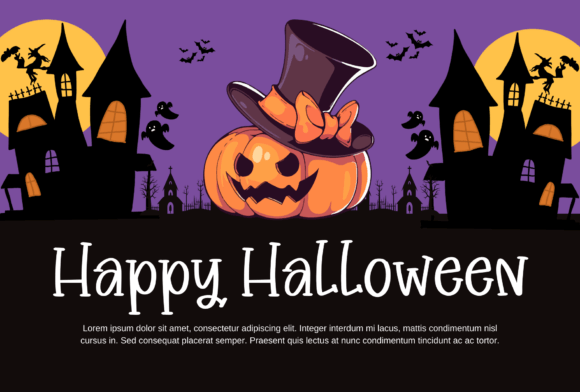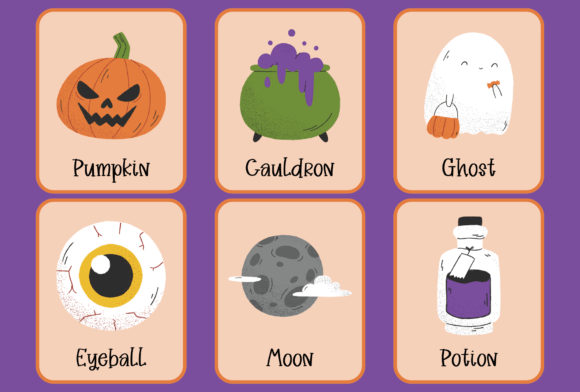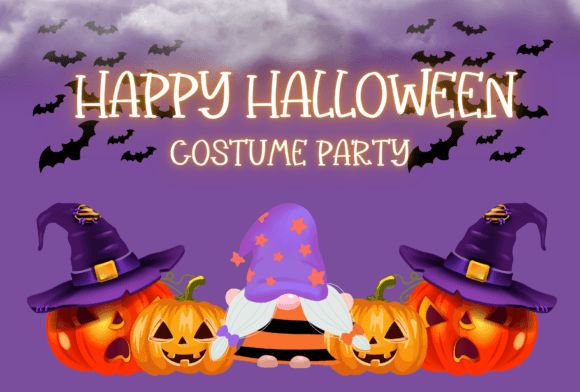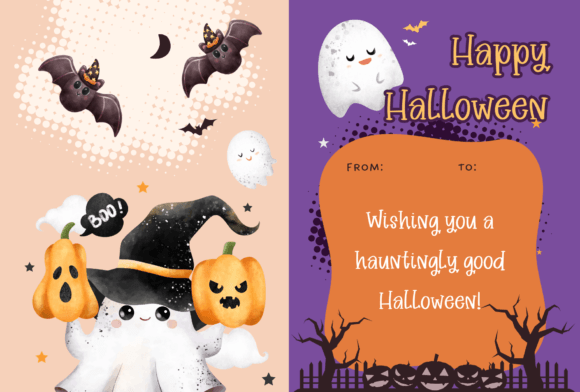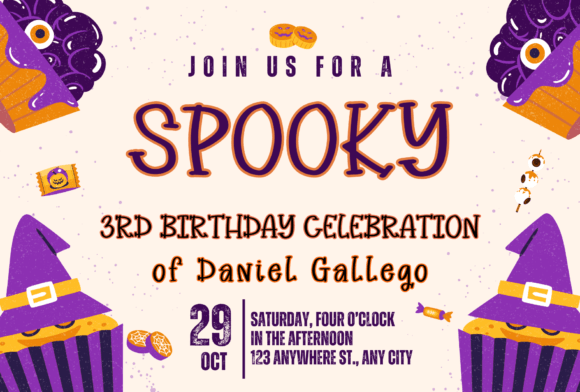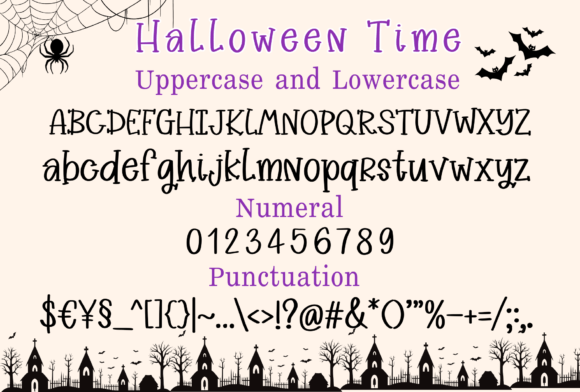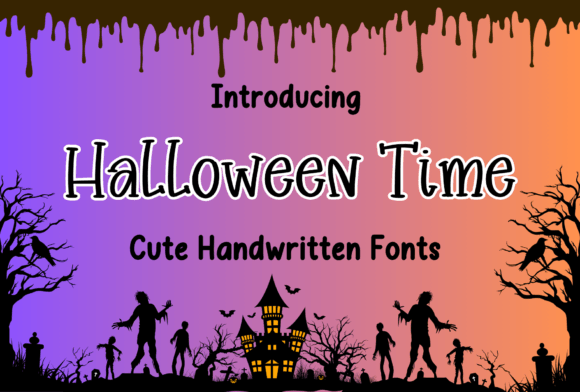
Halloween Time Font: Add a Spooky Touch to Your Designs
Are you looking for a font that will add a playful and charming touch to your Halloween designs? Look no further than the Halloween Time Font! This delightful handwritten font is perfect for creating fun and whimsical designs for t-shirts, stickers, mugs, planners, and more.
What is Halloween Time Font?
Halloween Time Font is a charming and playful handwritten font that is specifically designed to bring a little whimsy to your Halloween designs. Its playful and curly letters are perfect for creating eye-catching and engaging designs that will stand out from the crowd.
Features of Halloween Time Font
- Handwritten style: Halloween Time Font has a beautiful handwritten style that gives it a personal and unique touch.
- Playful and curly letters: The font features playful and curly letters that are perfect for creating fun and whimsical designs.
- Perfect for Halloween designs: The font is specifically designed for Halloween designs, making it perfect for creating spooky and fun designs.
- Versatile: Halloween Time Font can be used for a variety of design projects, including t-shirts, stickers, mugs, planners, and more.
Why Use Halloween Time Font?
There are many reasons why you should use Halloween Time Font for your design projects. Here are a few:
- Add a personal touch: The handwritten style of Halloween Time Font gives it a personal and unique touch that will make your designs stand out.
- Create fun and whimsical designs: The playful and curly letters of Halloween Time Font are perfect for creating fun and whimsical designs that will engage your audience.
- Perfect for Halloween designs: If you’re looking to create spooky and fun designs for Halloween, Halloween Time Font is the perfect choice.
- Easily readable: The font is easily readable, making it perfect for designs that require a clear and concise message.
How to Use Halloween Time Font?
Using Halloween Time Font is easy! Here are a few tips:
- Pair it with other fonts: Halloween Time Font can be paired with other fonts to create a unique and eye-catching design.
- Use it for headings and titles: The font is perfect for headings and titles, making it a great choice for creating eye-catching designs.
- Experiment with different colors: Halloween Time Font looks great in a variety of colors, so don’t be afraid to experiment and find the perfect color for your design.
Design Ideas Using Halloween Time Font
Here are a few design ideas that you can use Halloween Time Font for:
- T-shirts: Create fun and spooky t-shirts for Halloween using Halloween Time Font.
- Stickers: Design stickers that feature playful and curly letters using Halloween Time Font.
- Mugs: Create fun and whimsical mugs for Halloween using Halloween Time Font.
- Planners: Add a personal touch to your planners using Halloween Time Font.
Halloween Time Font is a charming and playful handwritten font that is perfect for adding a fun touch to your Halloween designs. Its playful and curly letters make it perfect for creating eye-catching and engaging designs that will stand out from the crowd. Whether you’re a designer or crafter, Halloween Time Font is a great choice for your design projects.